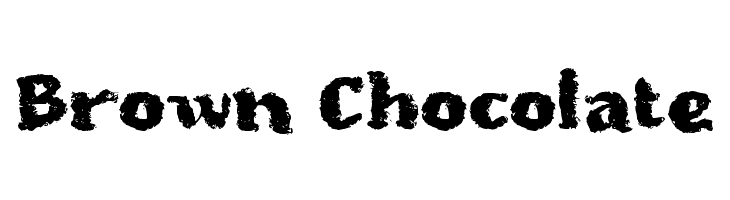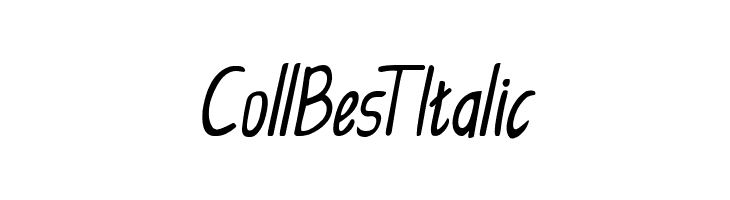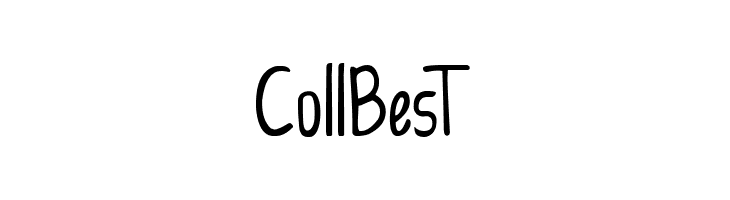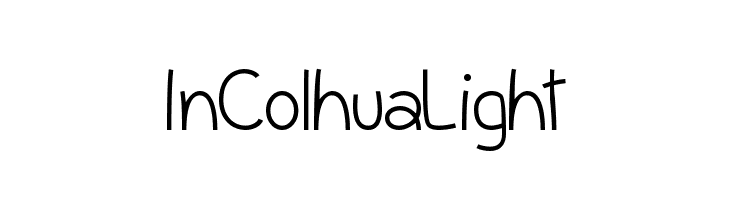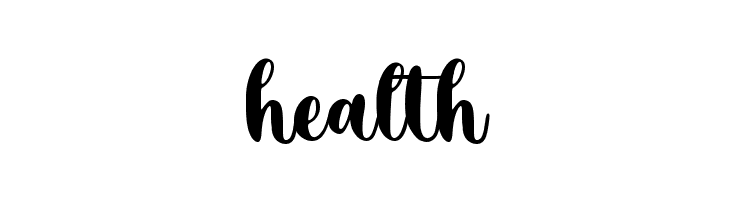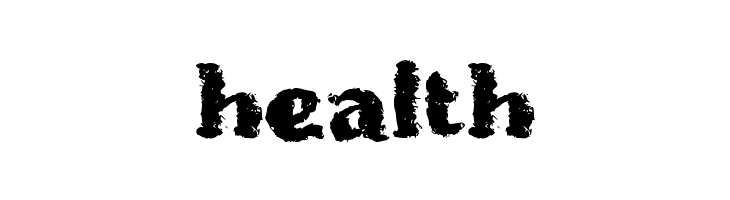
A bold, expressive script font with flowing, cursive letterforms.
A bold, hand-drawn font with a scribbled texture, perfect for playful and creative designs.
A bold, flowing script font with elegant curves and loops.
A bold, textured font with a playful, artistic style.
A bold, italicized handwritten font with a dynamic and energetic style.
A bold, playful handwritten font with rounded, uniform letterforms.
A fluid, italicized font with a handwritten style.
A bold, decorative font with a vintage, textured style ideal for standout designs.
A playful, handwritten-style font with a casual and friendly appearance.